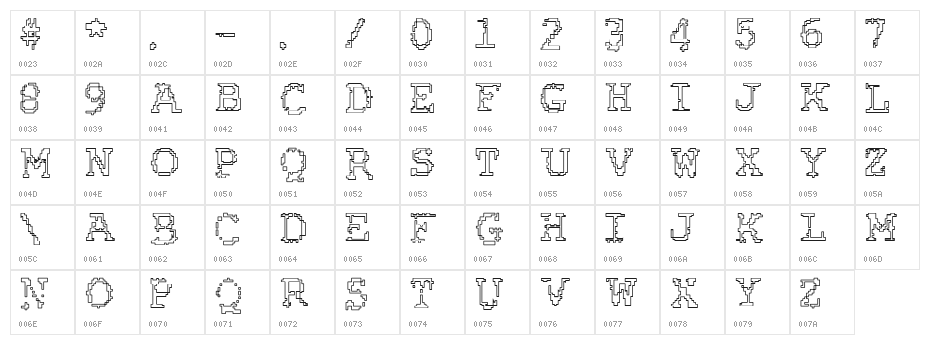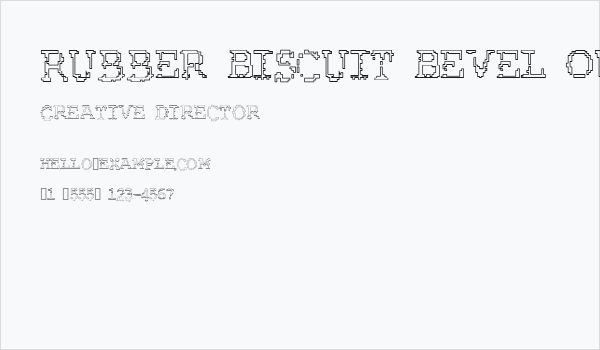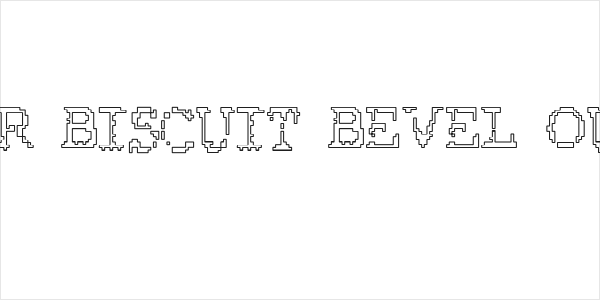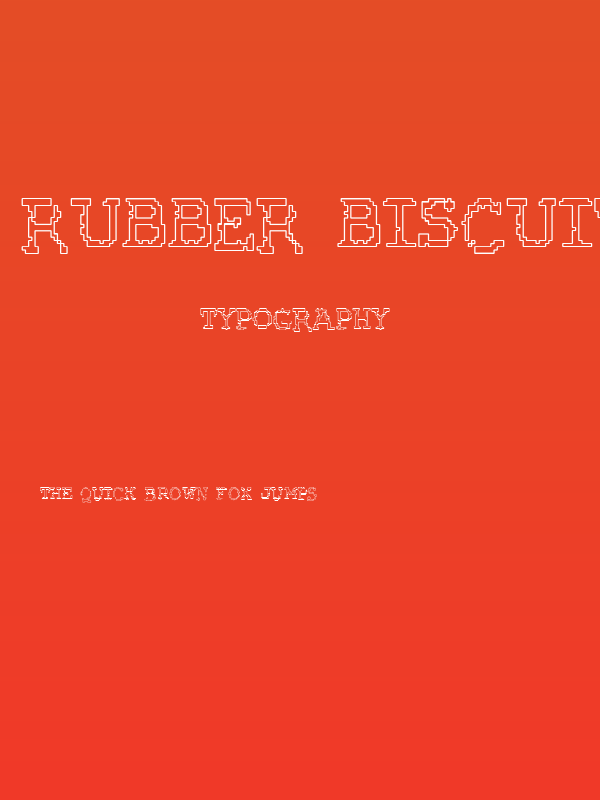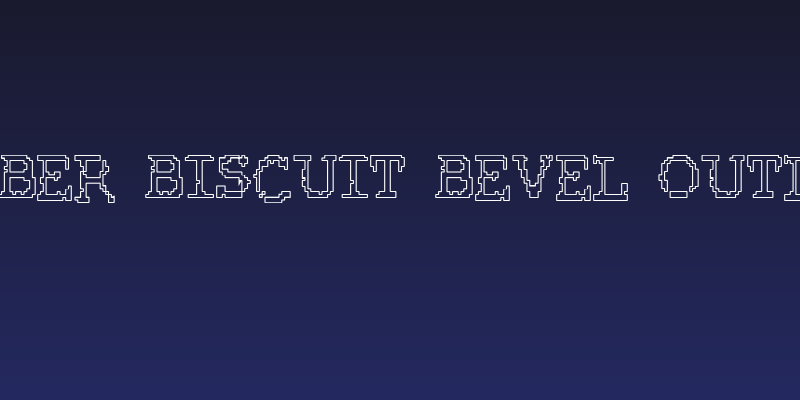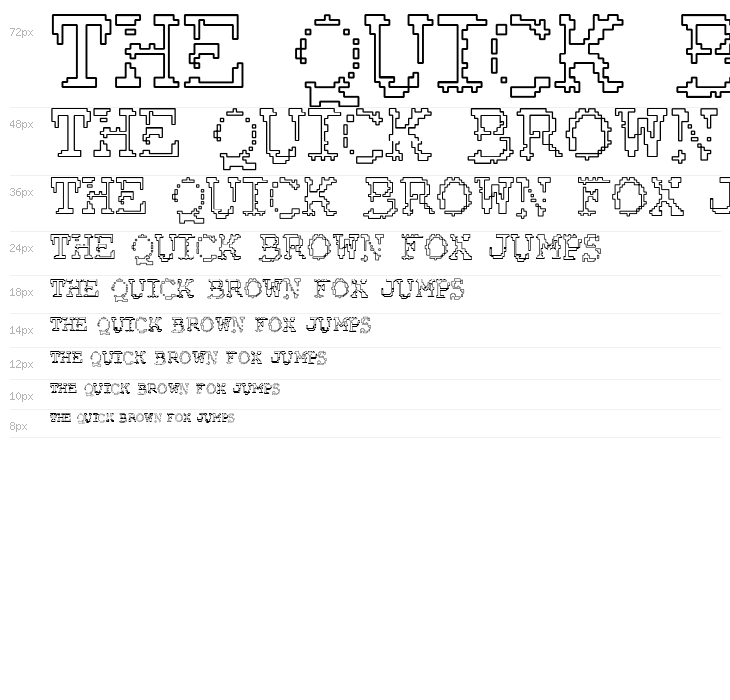
Rubber Biscuit Bevel Outline Font
Rubber Biscuit Bevel Outline Description
This font features a unique, playful outline style with a distinct bevel effect that gives it a three-dimensional appearance. The characters are constructed with a pixelated, blocky design, reminiscent of retro video game graphics. Each letter and number is outlined with a consistent thickness, creating a bold and eye-catching look. The special characters maintain the same aesthetic, ensuring a cohesive appearance across all glyphs. This font's quirky and fun style makes it ideal for creative projects that require a touch of nostalgia or a playful vibe.
Overall StyleRetro, Playful
Proposed ProjectsIdeal for video game graphics, retro-themed posters, children's book covers, and playful branding.